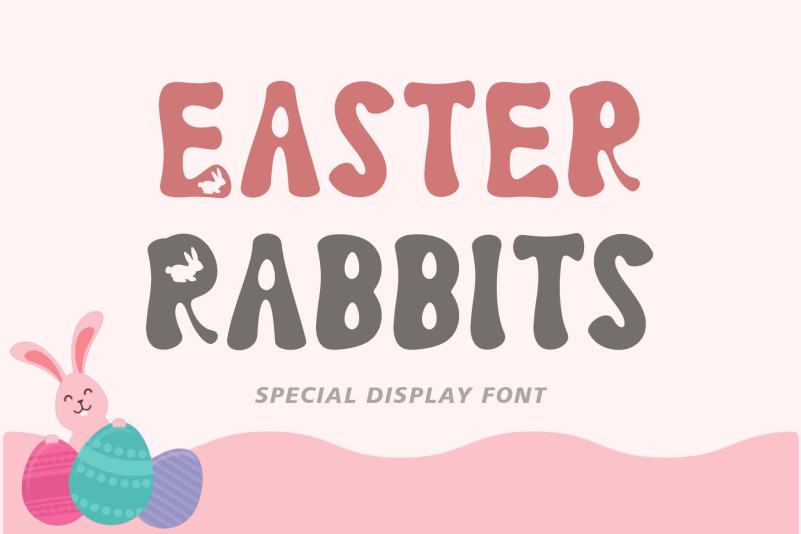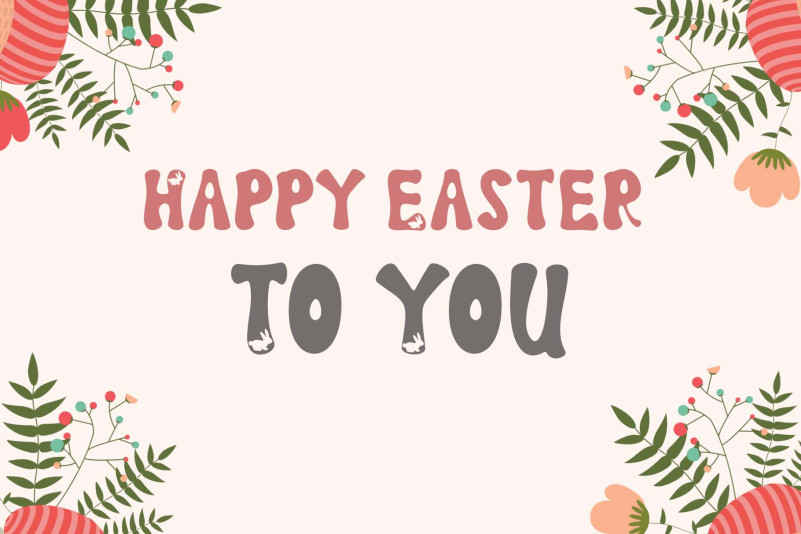
Easter Rabbits Font
Easter Rabbits Display Font is a cute and friendly display font that’s sure to make your words smile! With its soft curves and playful style, this font adds a touch of whimsy to any project. Perfect for children’s books, greeting cards, and social media graphics, this font will capture hearts and spread joy wherever it’s used.